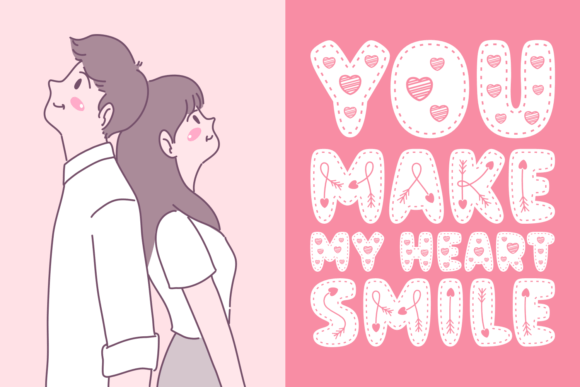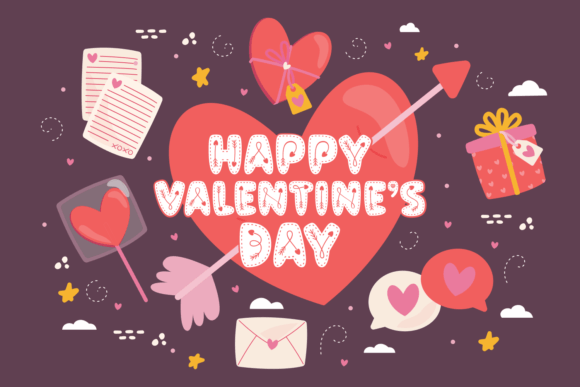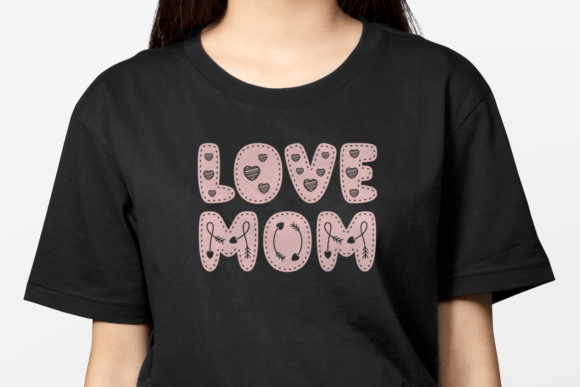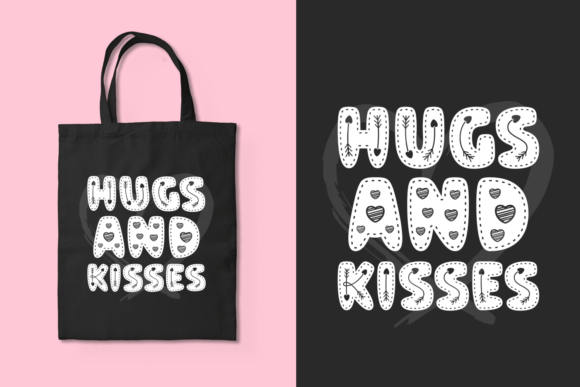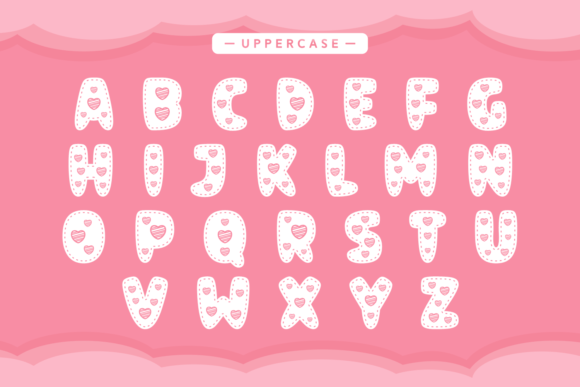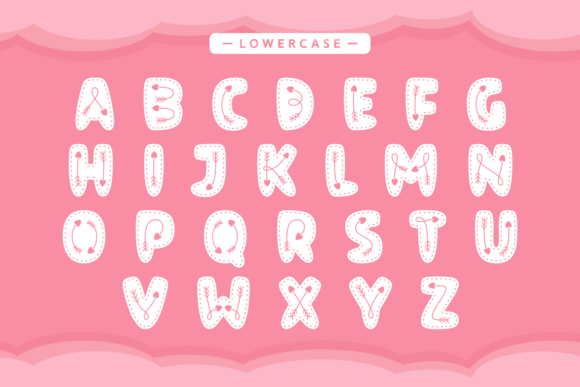
Introduction to Keep Loving Font
As a designer, have you ever found yourself stuck on a creative project, desperately searching for the perfect font to bring your idea to life? You’re not alone. We’ve all been there, scrolling through endless font options, trying to find that one special something that makes our project stand out. For me, it was the moment I stumbled upon the Keep Loving Font – a sweet and charming decorative font that immediately caught my eye.
With its lovely characters, the Keep Loving Font is a design resource that’s perfect for a wide range of applications, from Valentine’s Day gifts to greeting cards and stickers. Its high-quality design and transparent background make it a valuable addition to any designer’s toolkit, allowing for seamless integration into any project.
Key Features of Keep Loving Font
- High-quality, professional design perfect for creative projects and personal use.
- Designed with precision and care, resulting in a crisp and clear font at 300 DPI resolution.
- Perfect for use in logos, typography, and other creative projects where a unique and eye-catching font is required.
Honest Review: Keep Loving Font
I recently came across the Keep Loving Font, and I must say it’s been a great addition to my design resource library. This font is perfect for any creative project that requires a modern and elegant touch.
- ✨ High-quality design: The font is crisp and clean, making it ideal for printing or digital use.
- ✨ Transparent background: This allows for easy customization and integration with other design elements.
- ⚠️ Limited font styles: While the font is great, it’s a bit limited in terms of font styles and variations.
- ⚠️ Not ideal for complex text: Due to its modern design, it’s not the best choice for complex or lengthy text.
Keep Loving Font
The Keep Loving Font is suitable for various creative projects, including:
- Posters
- Logos
- Typography-based artwork
Comparison to Keep Loving Font: While both fonts are elegant and sophisticated, Great Vibes Font has a more refined and polished look, making it a better choice for formal or professional projects. Keep Loving Font, on the other hand, has a more playful and whimsical feel, making it suitable for more casual or creative projects.